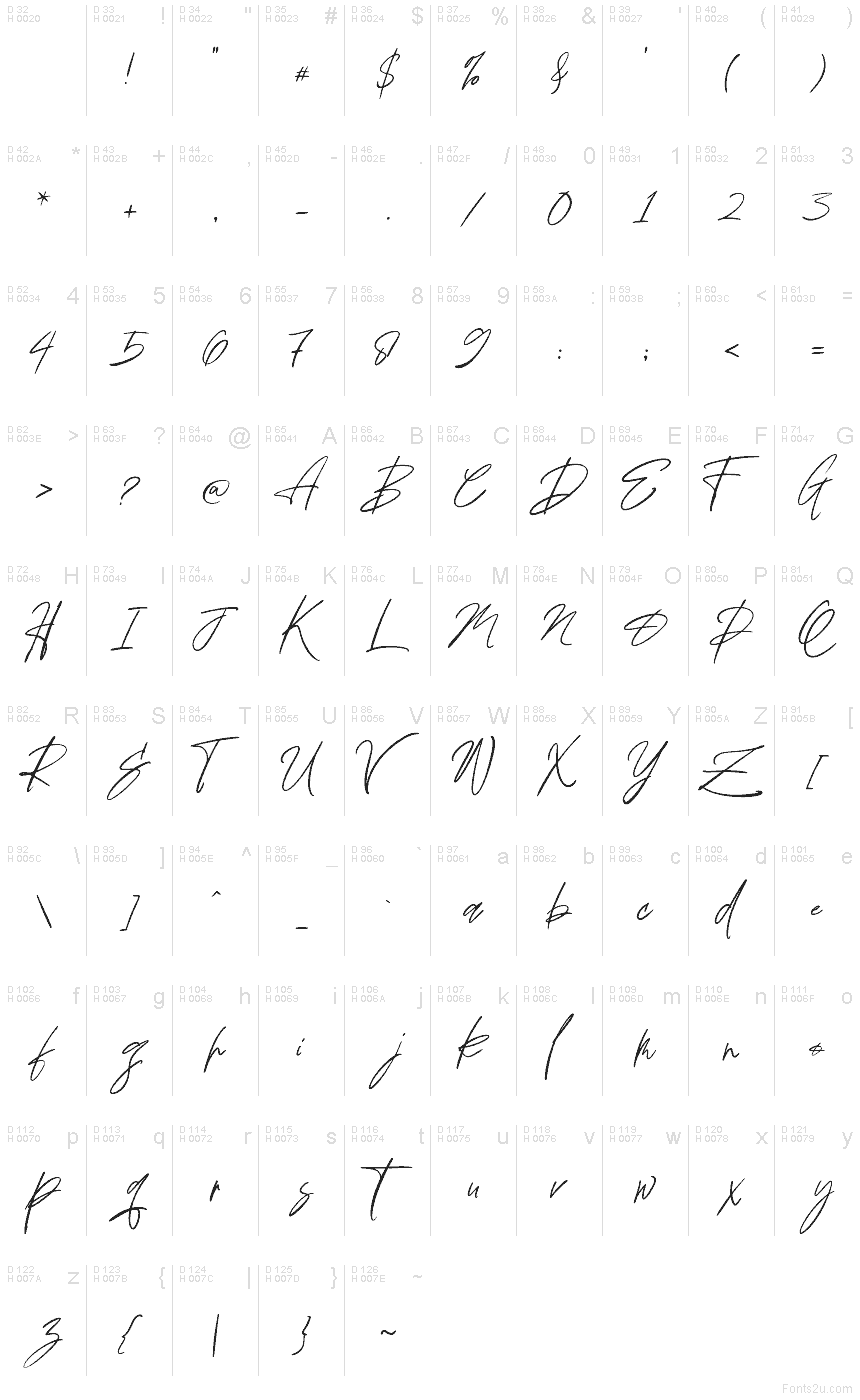
HermandesSignature-Regular
Hermandes Signature font by Tebaltipis Studio is a light handwritten signature script font with an elegant style and condensed width. Each letter in this typeface moves smoothly from one to another, creating incredible visual appeal. The whole composition is kept minimalistic yet beautiful, combining modern aesthetics with the designer’s expressive artistic flair.
Free for use by designers, Hermandes Signature can support all design types with its personal touch. Its fluidity is excellent for invitations, business cards, loyalty cards, posters, product packaging designs and labels such as perfumes and jewelry ones. Other uses include advertising and marketing purposes related to fashion or photography.